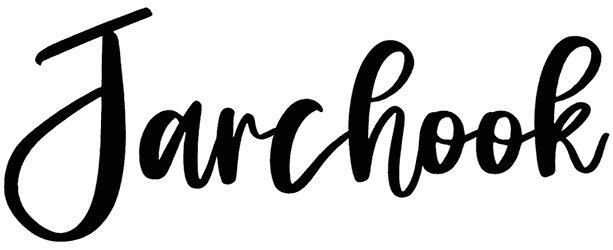
Jarchook Font
Do you want to create a natural and elegant outward for your modern design? Don’t lose this handwritten font with its cool brush-lettered form. Jarchook supports A-Z characters that provide a nice chance for you to use it for any short or long text, set this script font on your subsequent designs, from postcards to tattoos, and make a delightful vibe.